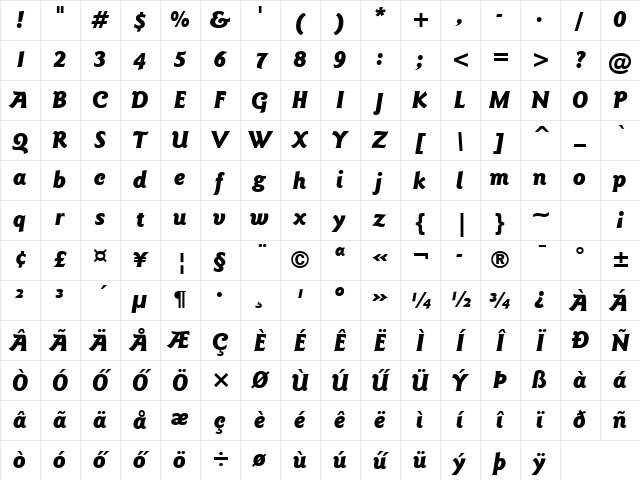
H_GOUDY7 Regular Free Font
H_GOUDY7 Regular
Design Context for H_GOUDY7
H_GOUDY7 is a composed and adaptable typeface that performs quietly and consistently across a wide range of design contexts.
Pro Tip: Use H_GOUDY7 in both headline and body roles to test its range before committing to a single application.